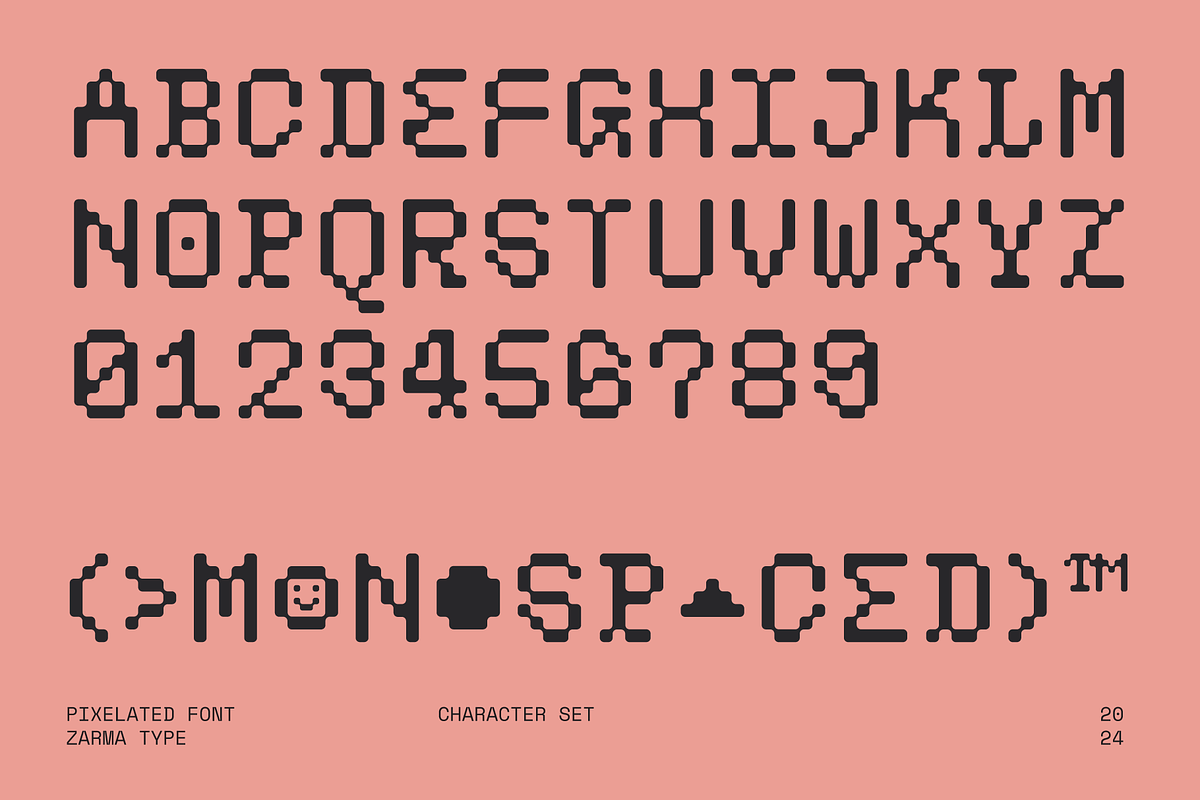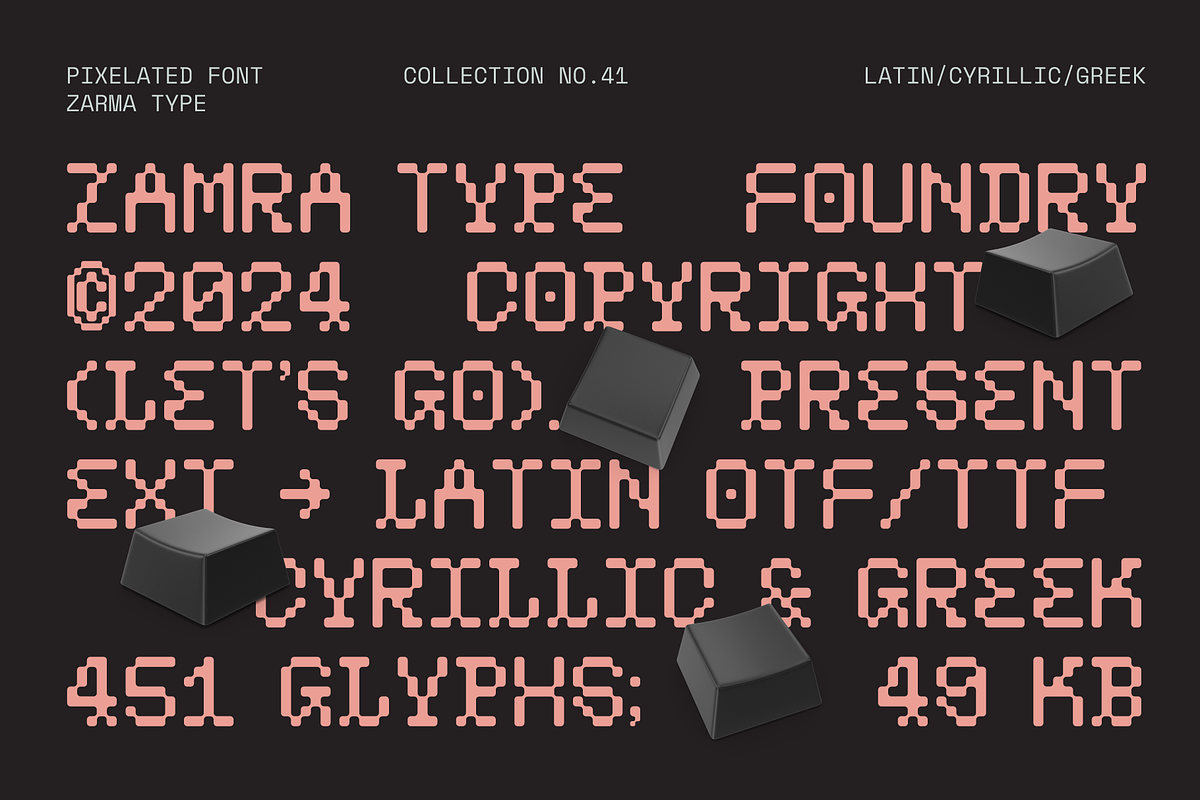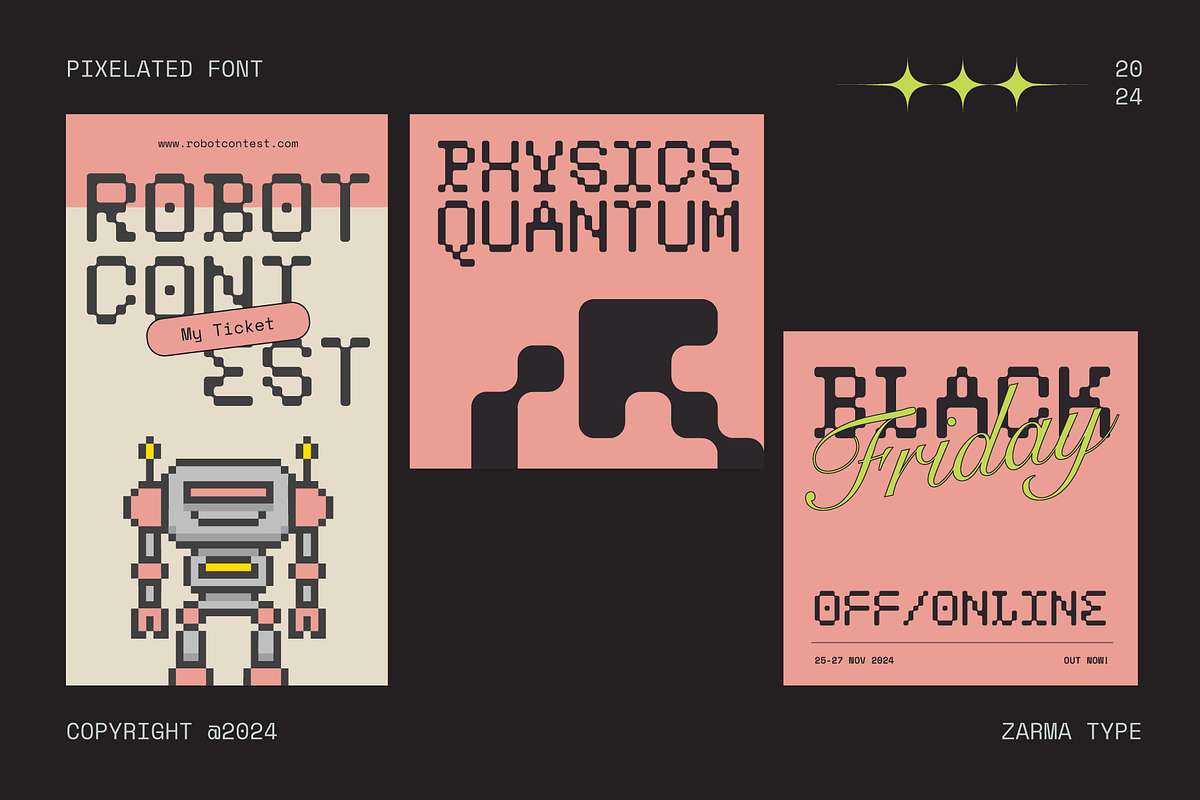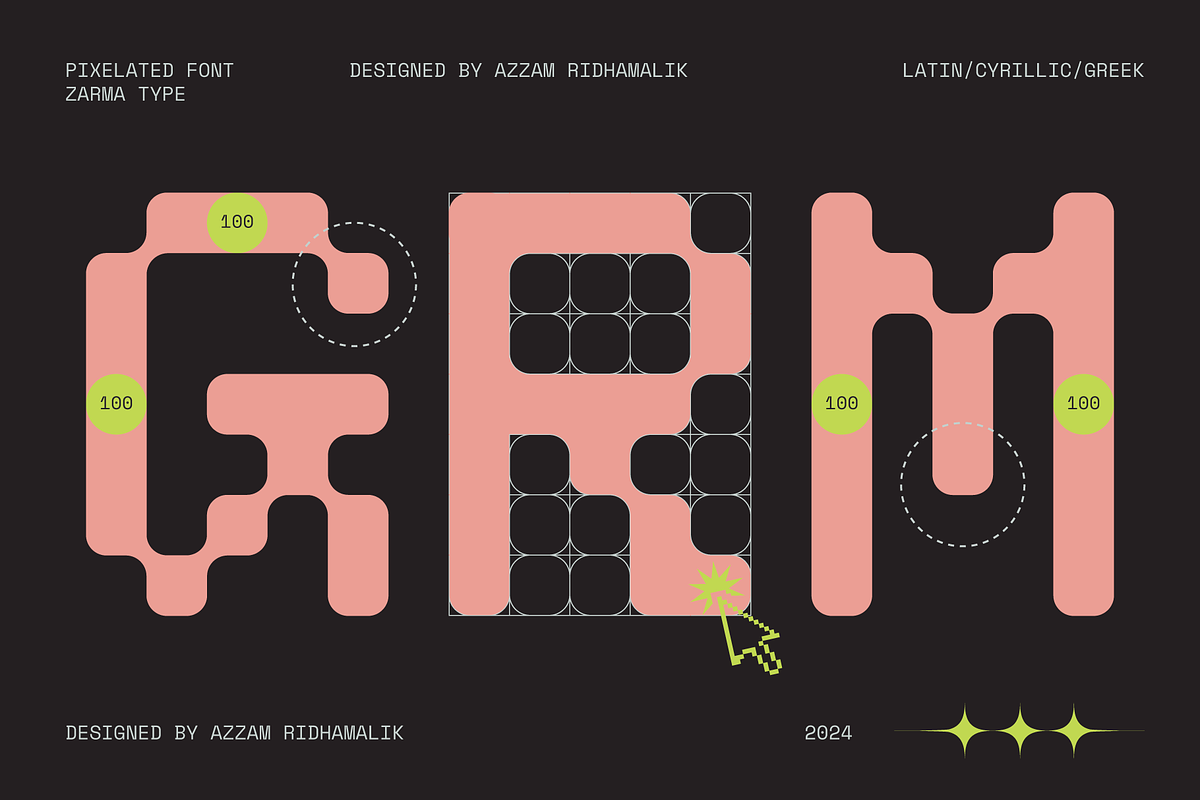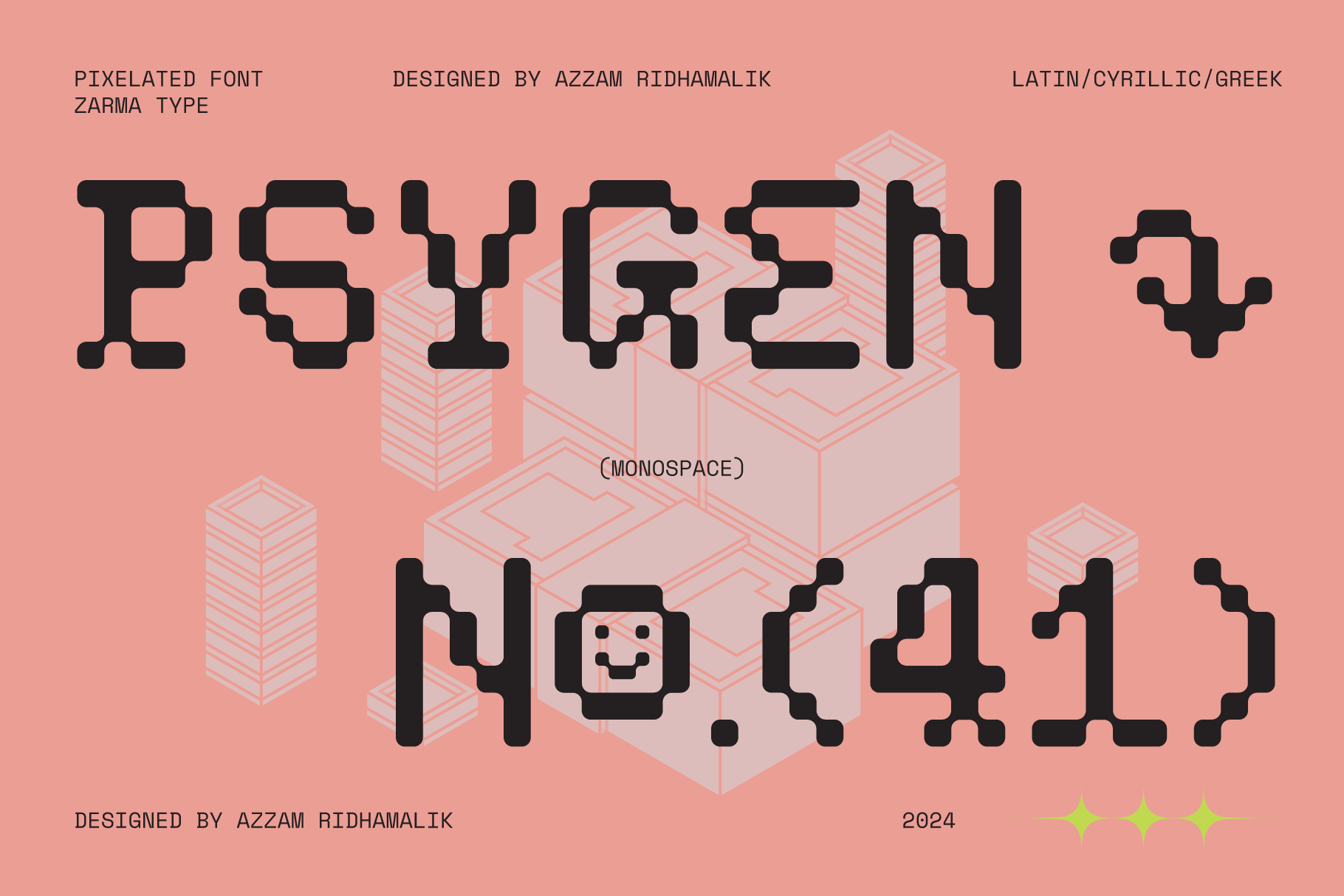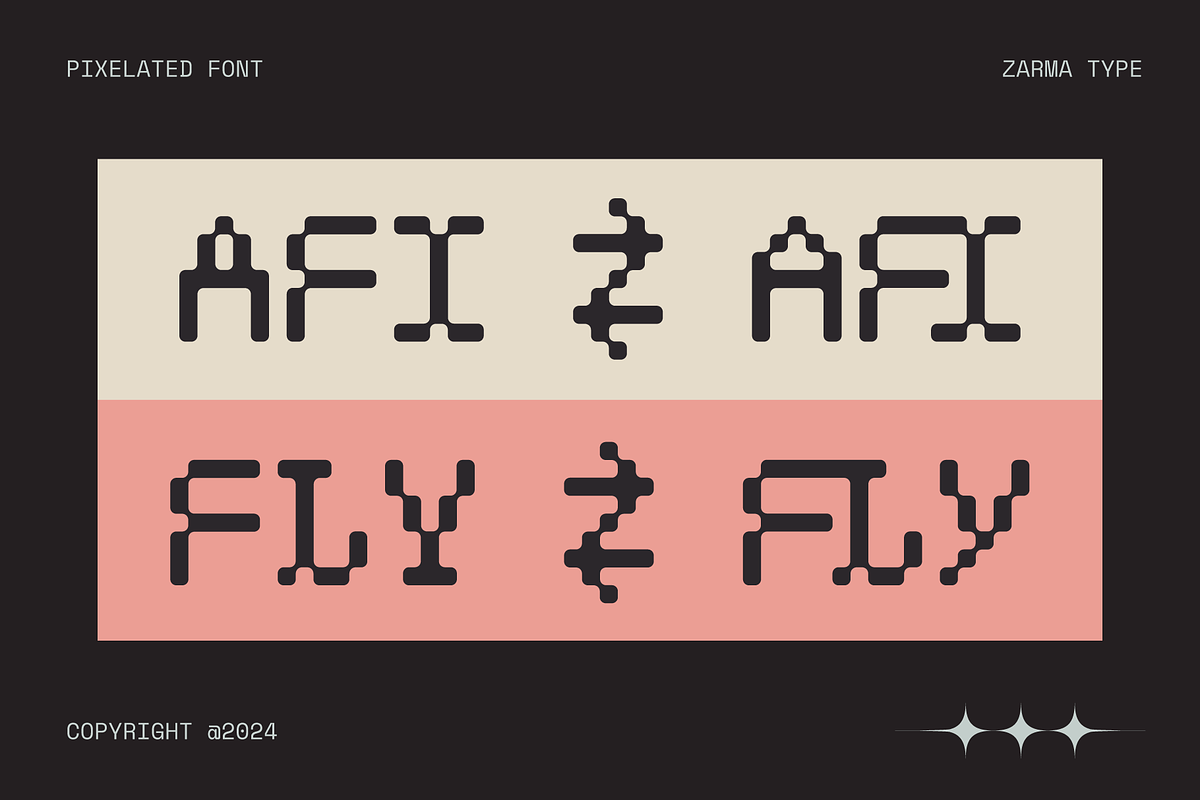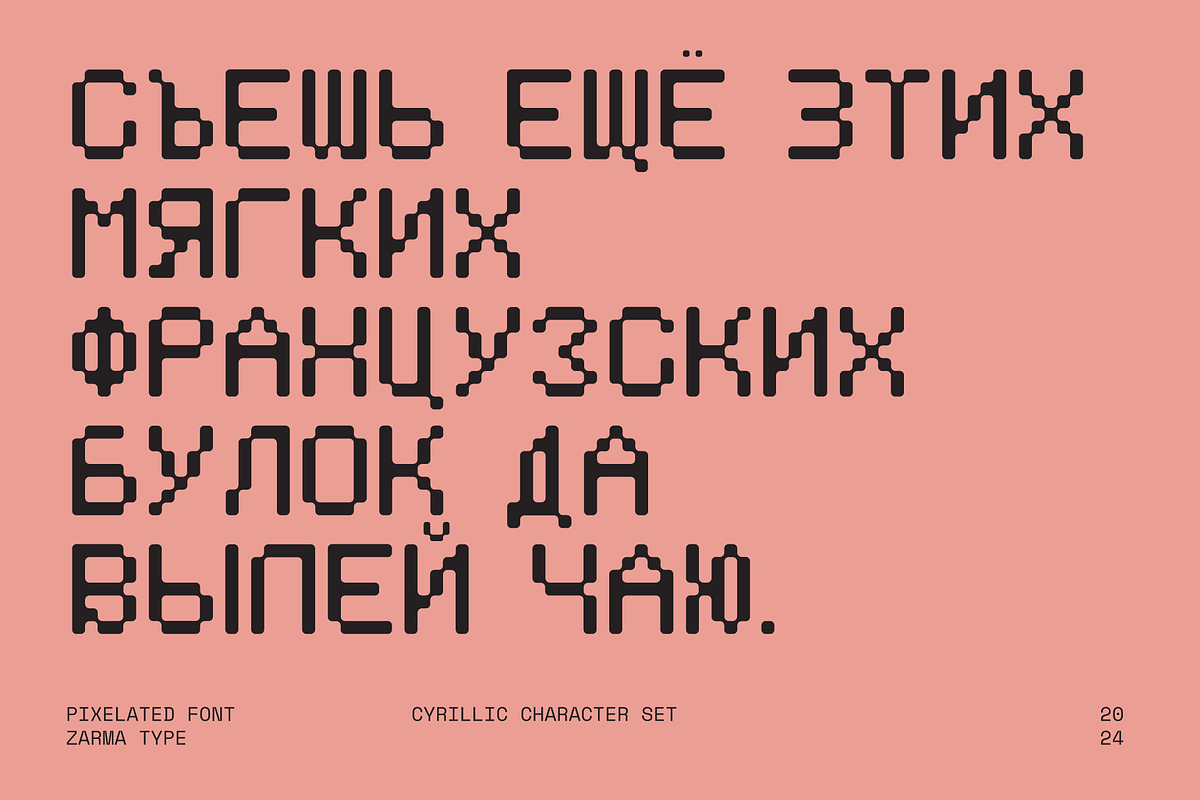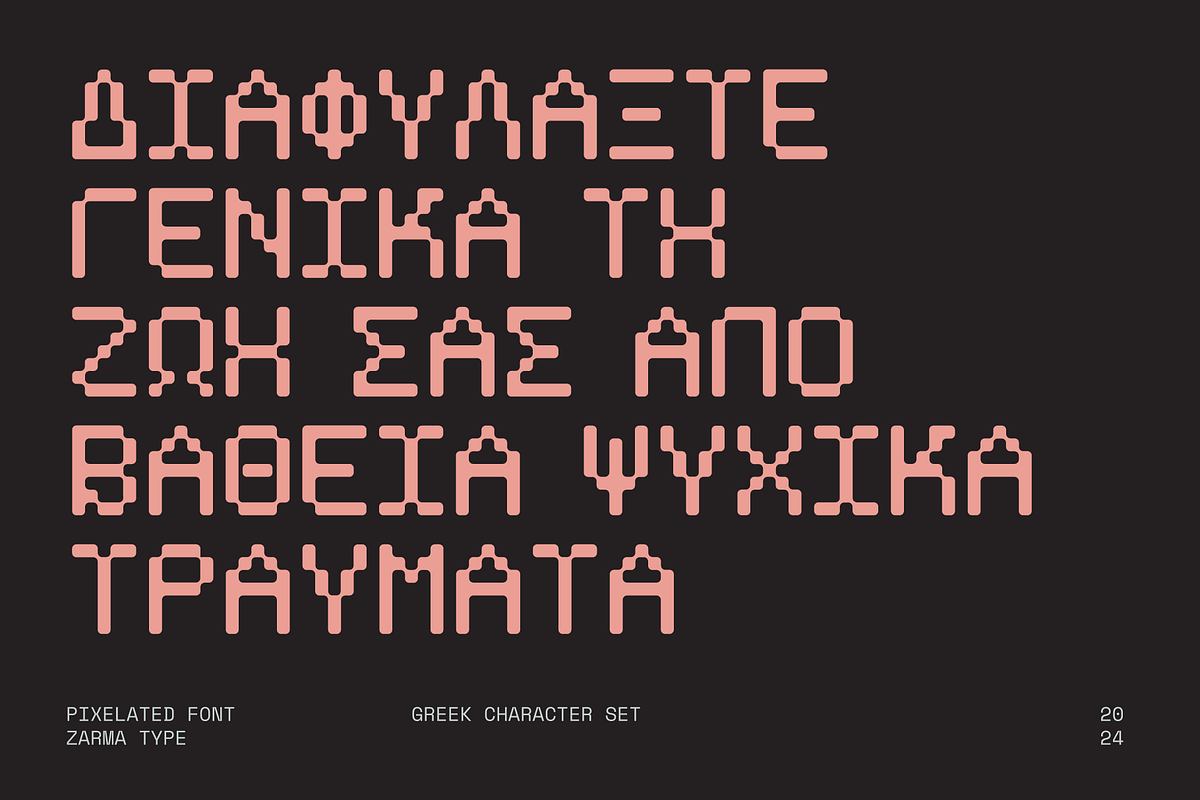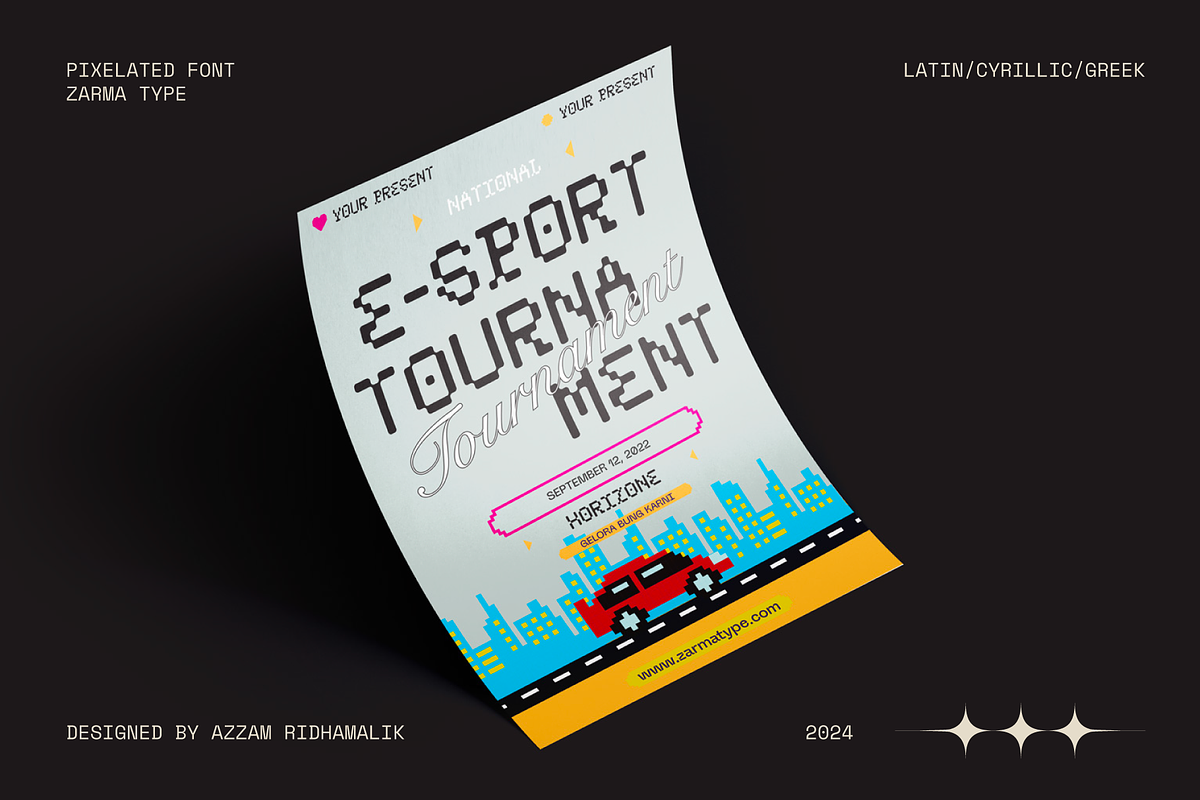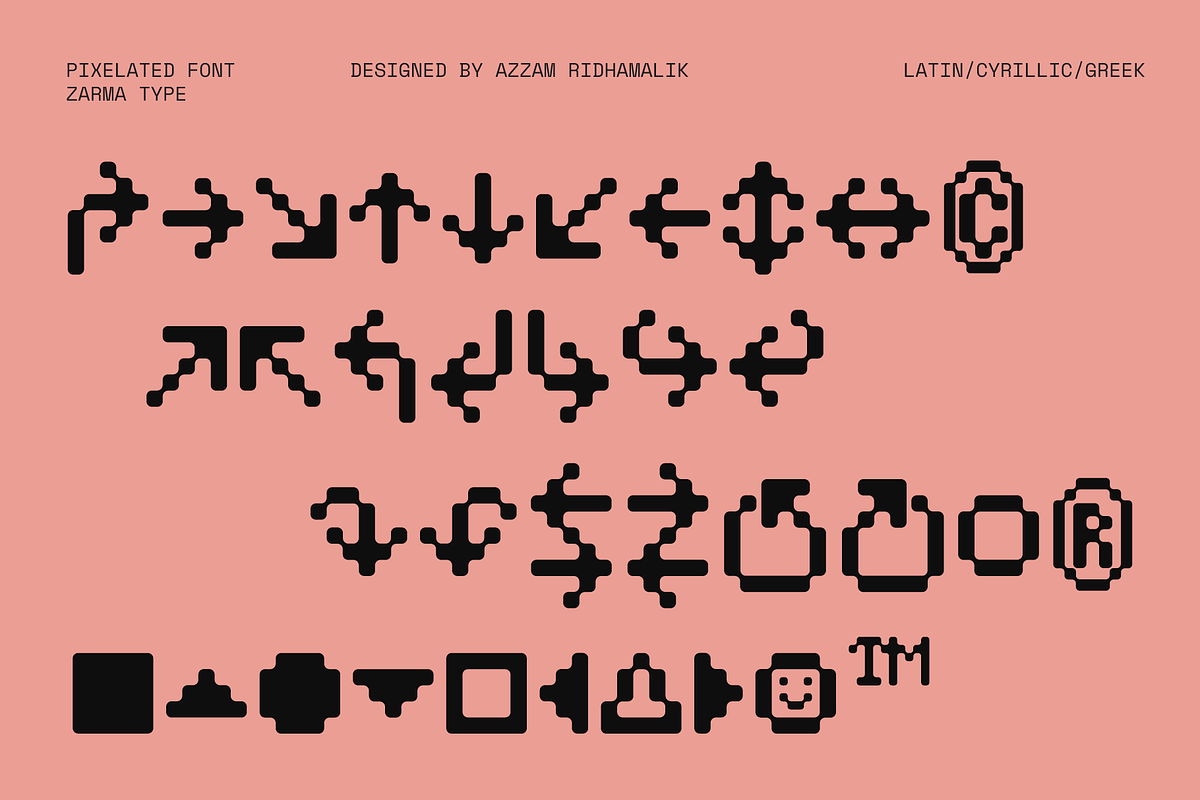
Psygen – Modern Pixel Font
Modern Pixel Font, Psygen is a bold and innovative monospace pixel font designed to add a contemporary edge to retro aesthetics. Tailored for digital creatives, Psygen is versatile across various projects, including gaming, branding, and digital media.
Key Features: Multilingual Support: Includes OpenType Latin Pro, Greek, and Cyrillic character sets. Versatile Application: Ideal for gaming UI, branding, social media, posters, and more. Monospace Font: Ensures uniform spacing and alignment, perfect for digital and creative designs. All Caps: Features uppercase letters with consistent geometric proportions for bold, impactful typography. Symbols & Arrows: Comes with unique symbols and directional arrows to elevate digital and creative projects. Contemporary Design: A modern take on pixelated fonts with a fresh aesthetic. Technical Details: Available in OTF, TTF, WOFF, and WOFF2 formats, lightweight for seamless performance.
Psygen Font supports over 85 languages, covering Latin, Greek, and Cyrillic scripts. It includes characters like Ч, Ψ, Ω, and Φ. Whether you’re crafting logos for tech startups, retro-themed posters, or gaming UIs, Psygen is your go-to choice for pixel-perfect typography.